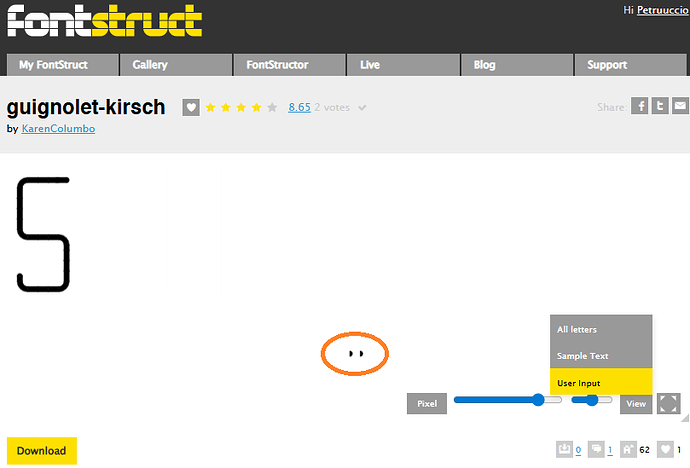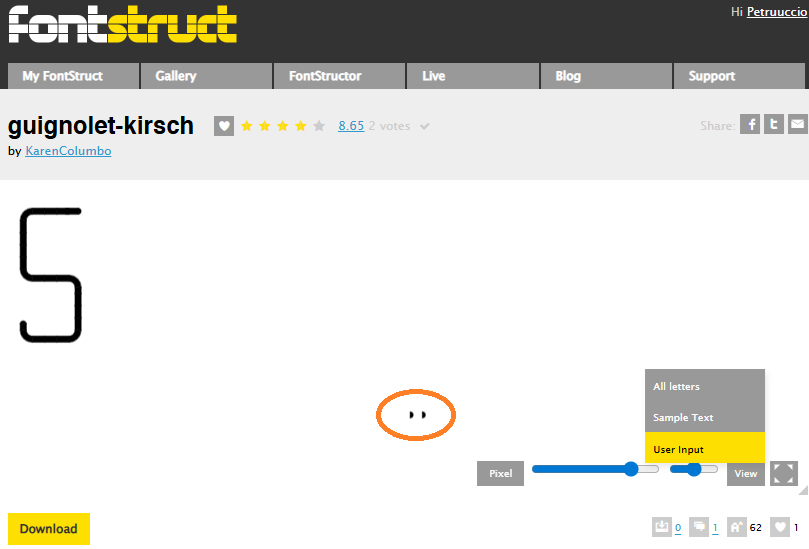
Simple font "guignolet kirsch"
Needed a simple numeric font, and ended up making one in FontStruct. It’s as complete as I got it, still missing an Ampersand, though, that one escapes me for the moment.
Here it is:
Guignolat
Still quite a lot to do, some chars are a bit too small, the spacing’s not really right. I will eventually get to it. I’m grateful for any error spottings :slight_smile:
Nice Font - nice watch - simple and elegant.
Only needs the same on the dim face for those who like AOD
The watch face is just a font test. Thanks for the kind words, but the face was no serious attempt :slight_smile:
Doing letters at the moment, at least caps to match the digits.
Posted a link to the same font with numbers and all caps letters in the O/T. If you have any issues with it please don’t hesitate to tell me, I’ll try to “perfect” the font from time to time :slight_smile:
Great, clean font. As a FontStruct fan myself I know the effort.
Would work really well as a nixie font… Oooh I see a revisit happening.
Simple: didn’t see this :slight_smile: Will do as soon as the font is as good as it can get. Still some inconsistencies in the spacing
As another commenter on that site noted, your digit 5 seem to have some unexpected fragment bricks far right below the base line, maybe you could tidy them up.
Oooh, that pesky copy paste to the right over again and not fully selecting on the cleanup.
Will it be with diacritics?
Erm … MAYBE? Seems like there’s a lot of those. I may give it a go, never can have too many of those little gems.
Yup, cleaned up. Must have been the cat running over my keyboard, hahaha.
I specifically asked about Czech diacritics.
Yeah, you just did. I’ll have a look as soon as I’m motivated :slight_smile: